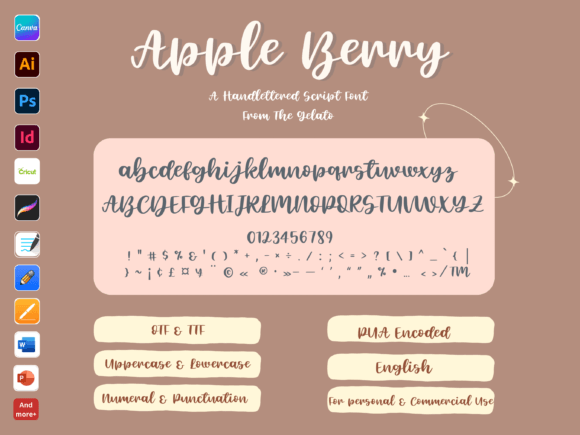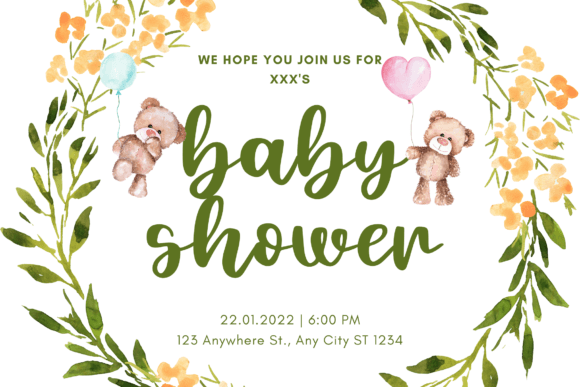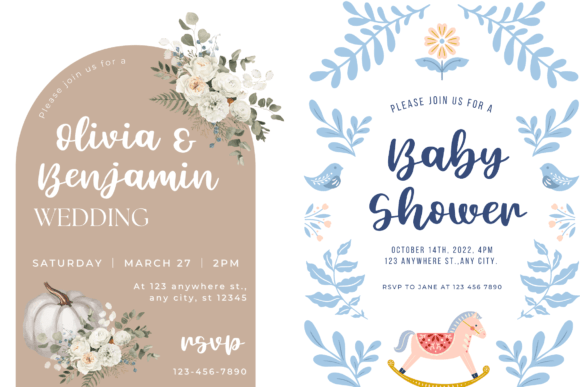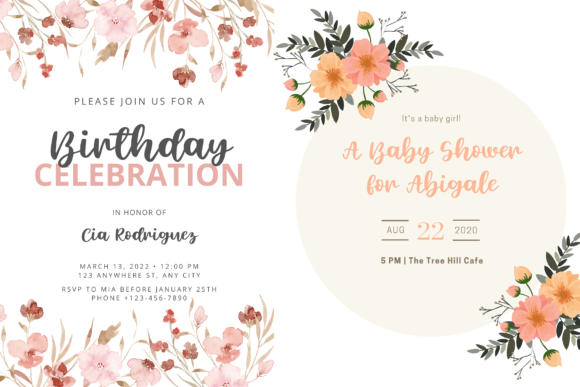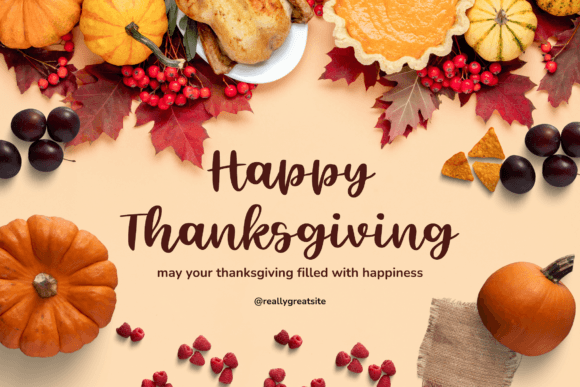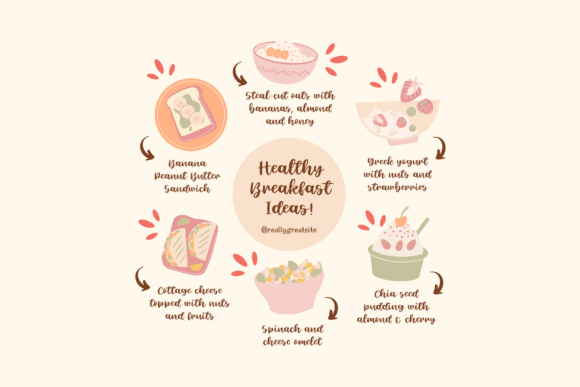
The Apple Berry Font: A Modern Elegance for Your Designs
I’ll never forget the moment I stumbled upon the perfect font for a client’s luxury branding project. It was like finding the missing piece to a puzzle – everything clicked into place, and the design transformed from good to stunning. That’s exactly what the “Apple Berry” font did for me, and I’m excited to share its beauty with you today!
Let’s dive into the good stuff first! Here’s what I’m absolutely loving about the Apple Berry font:
- ✨ Elegant and sophisticated vibe: This font exudes luxury and refinement, making it perfect for high-end branding and designs.
- ✅ Flowing and delicate lines: The handwritten style has a beautiful, organic feel that adds a touch of warmth to any project.
- ✅ Versatile and modern: Apple Berry’s minimalist style ensures it will fit right in with contemporary designs and trends.
Now, I’m not one to sugarcoat things, so let’s talk about a couple of minor quirks:
- ⚠️ Limited use in very small sizes: Due to its elegant and delicate nature, Apple Berry might not be the best choice for very small font sizes (below 10-12 points). It’s best used in larger sizes where its beauty can shine.
- 🤔 Some letter spacing adjustments may be needed: Depending on your design and the words you’re using, you might need to tweak the letter spacing to ensure it looks perfect. But trust me, it’s worth the extra effort!
The Story Behind Apple Berry
Apple Berry was designed with the intention of capturing the essence of modern luxury. Its creator aimed to blend elegance with a sense of playfulness, making it perfect for brands that want to stand out with sophistication. While the exact story behind Apple Berry might be shrouded in mystery, its impact on designs is undeniable.
| Font Name | Apple Berry Font |
| Author | The Gelato |
| What makes Apple Berry suitable for luxury branding? | Its elegant and sophisticated design, combined with flowing and delicate lines, gives Apple Berry a high-end feel that’s perfect for luxury branding. |
| Can I use Apple Berry for both digital and print designs? | Absolutely! Apple Berry’s versatility makes it suitable for a wide range of design projects, from digital graphics to print materials. |
| Is Apple Berry a difficult font to read? | No, Apple Berry is designed to be legible and readable, making it perfect for body text and headlines alike. |